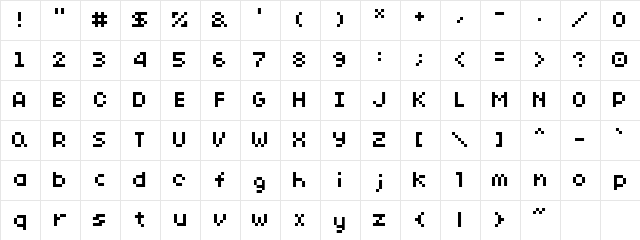
SHAKAGRAPHIC 10
Design Context for SHAKAGRAPHIC Typeface
SHAKAGRAPHIC offers clean, dependable letterforms without strong stylistic allegiance, making it a practical choice for designers who need flexibility.